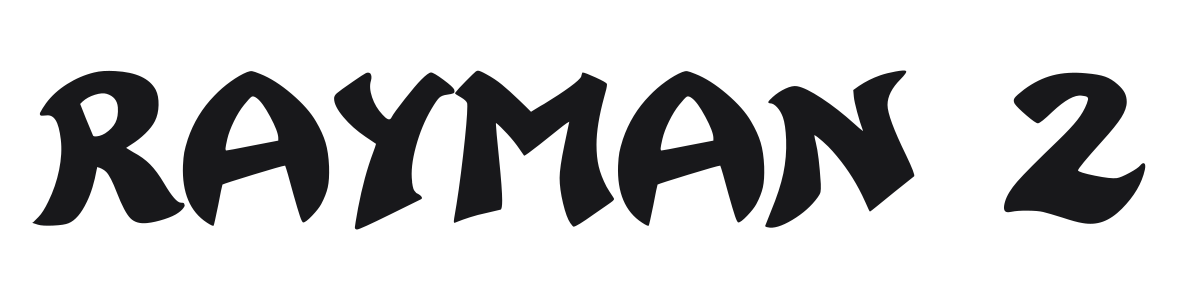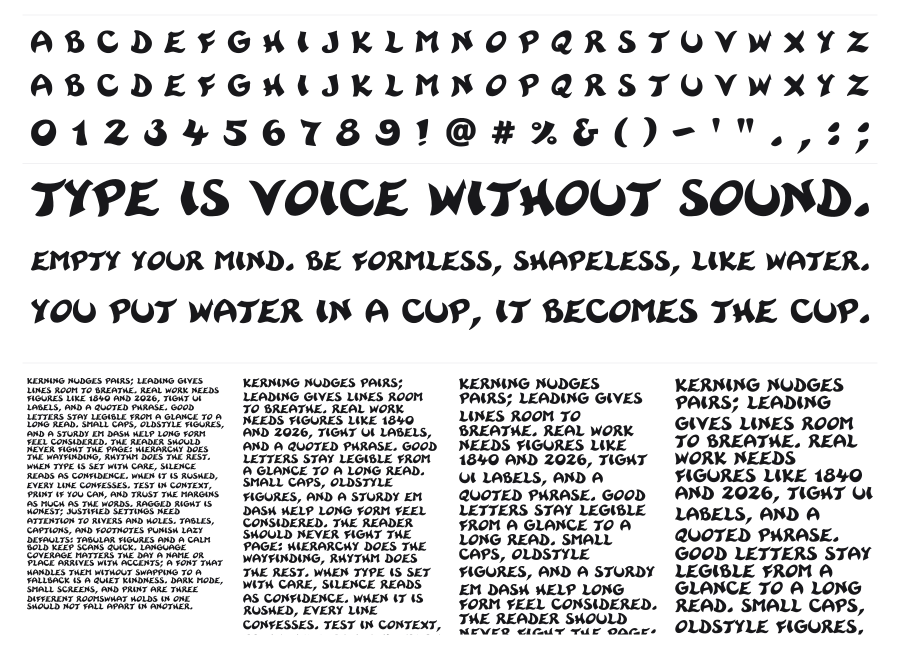
Rayman 2
Rayman 2 is a bold cartoon display font recreated from the title screen lettering of the classic 1999 Ubisoft platformer. Its thick strokes taper into sharp, almost tribal points, giving it a wild, adventurous energy that is immediately recognizable to fans of the game. The heavy weight and organic construction make it a natural choice for game-inspired headlines and children's media.